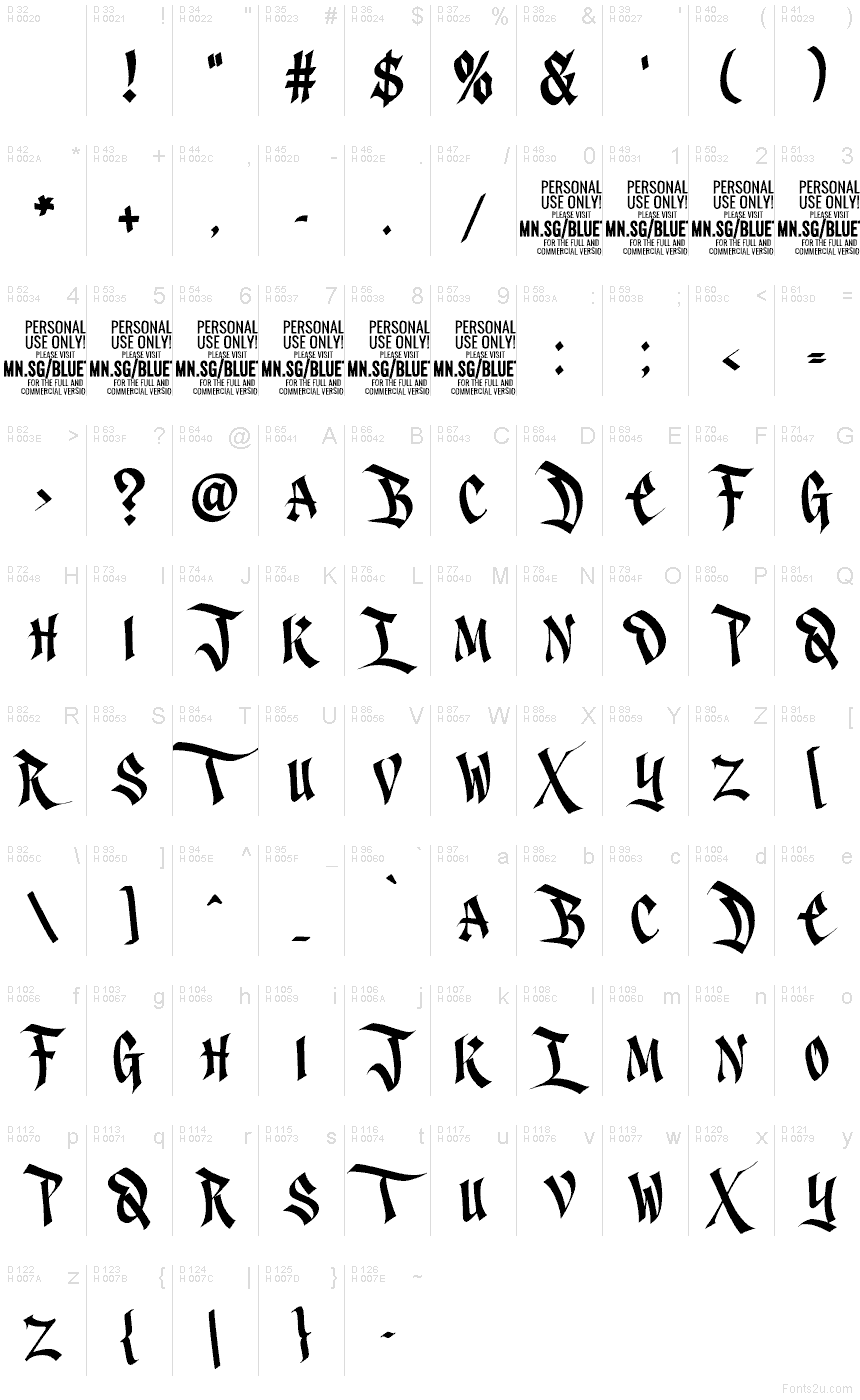
Bluetag PERSONAL USE Regular
Bluetag font by Mans Greback is a free graffiti blackletter display font. Built around speed and cut, its angular extensions and razor‑sharp terminals slice through white space like fresh blades. The chunky, tightly stacked forms create a tense, high‑contrast rhythm that reads like a fierce, inky tag frozen mid‑motion.
Using Bluetag, headlines snap with attitude—great for album art, streetwear branding, extreme sports posters, gaming logos, tattoo‑inspired merch, and festival flyers. Set this free font big and bold, then pair it with a clean, unobtrusive sans for body copy so the slashed letterforms stay loud without sacrificing clarity.